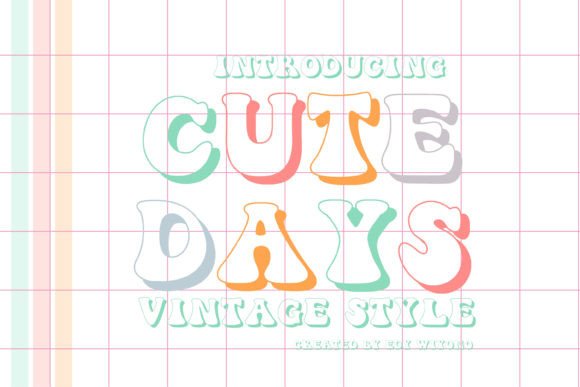
Step into a world of playful possibilities with Cute Days Font, the ultimate display font that sparks joy and captures hearts. Its enchanting curves and rounded edges dance across your screen, inviting you to explore a realm of creativity and fun. Whether you're designing for kids' projects, playful branding, or whimsical invitations, Cute Days Font is your perfect companion.
With its bold, all-caps design, Cute Days Font commands attention, making your headlines, logos, and branding projects pop with personality. Its retro-inspired style adds a touch of nostalgia, evoking memories of childhood wonder and carefree days. Let this font transport you to a world where imagination runs wild, where colors are vibrant, and smiles are contagious.
Dive into the magic of Cute Days Font and unleash your creativity. Its playful design is a breath of fresh air, sure to leave a lasting impression on your audience. Perfect for kids' books, posters, greeting cards, and other cheerful designs, this font will bring a smile to anyone's face.
Don't let ordinary fonts hold you back. Embrace the charm of Cute Days Font and let your designs radiate joy and happiness. It's the perfect choice for those who dare to be different, who seek to create projects that resonate with hearts. Experience the power of Cute Days Font today and let your imagination soar.